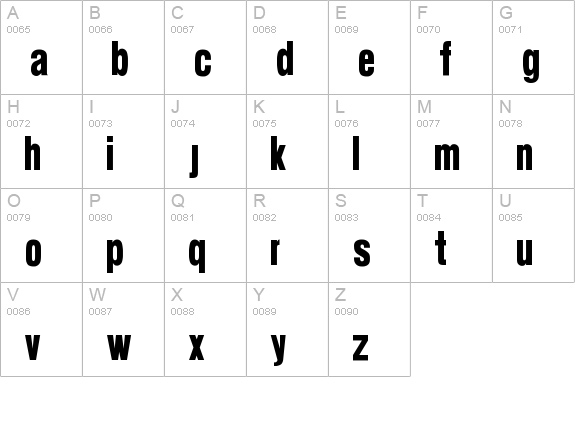
suede Font Details
Suede font is a stylish and sophisticated typeface that exudes elegance and charm. Its soft, velvety appearance adds a touch of luxury to any design project. The unique texture of suede font gives it a tactile quality that sets it apart from other fonts. The best part? Suede font is available for free download at FontsMarket.com. This means you can add a touch of sophistication to your designs without breaking the bank. Whether you're working on a branding project, website design, or any other creative endeavor, suede font is sure to make a lasting impression. Don't miss out on this opportunity to elevate your designs with the timeless beauty of suede font. Download it for free today and see the difference it can make in your work.